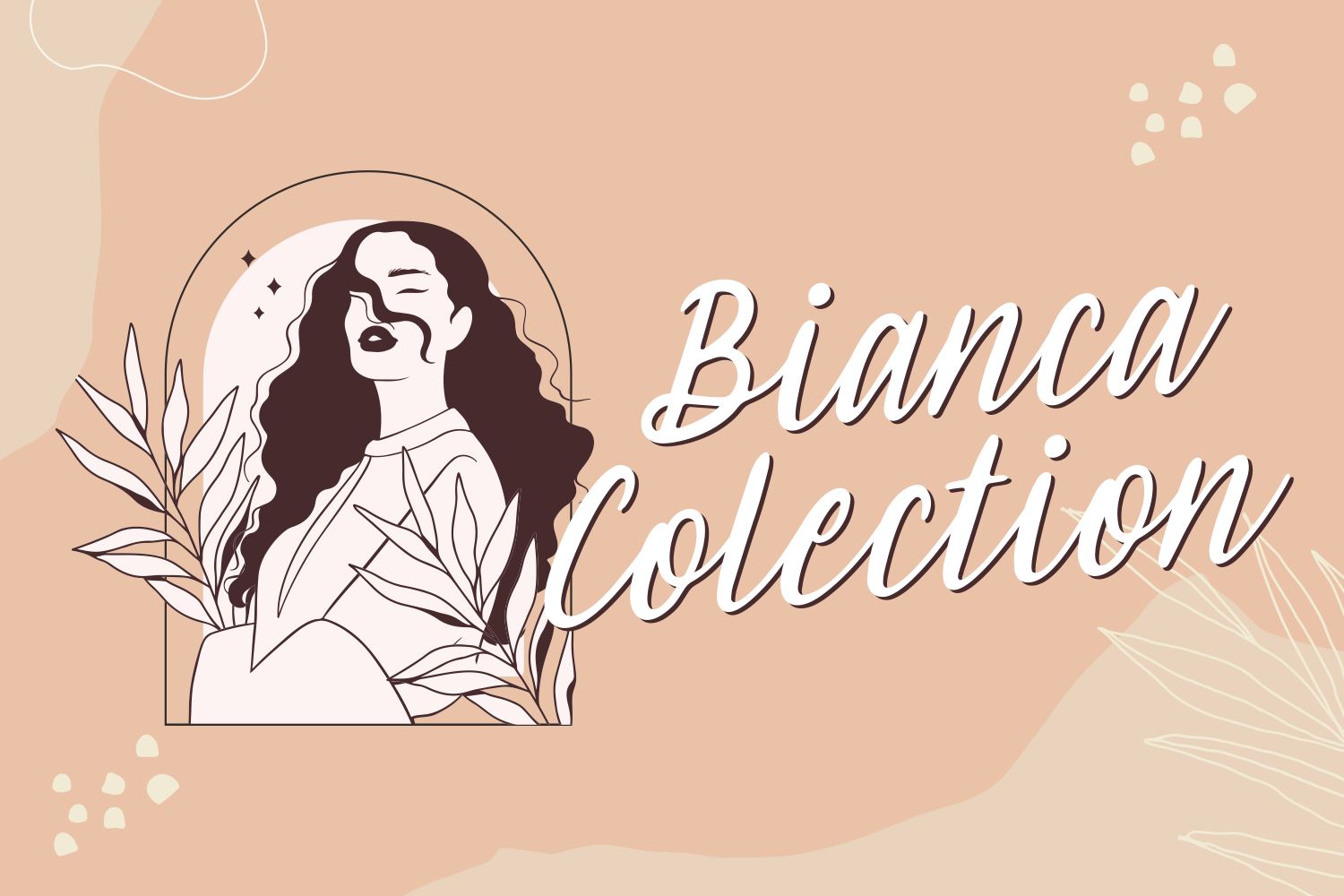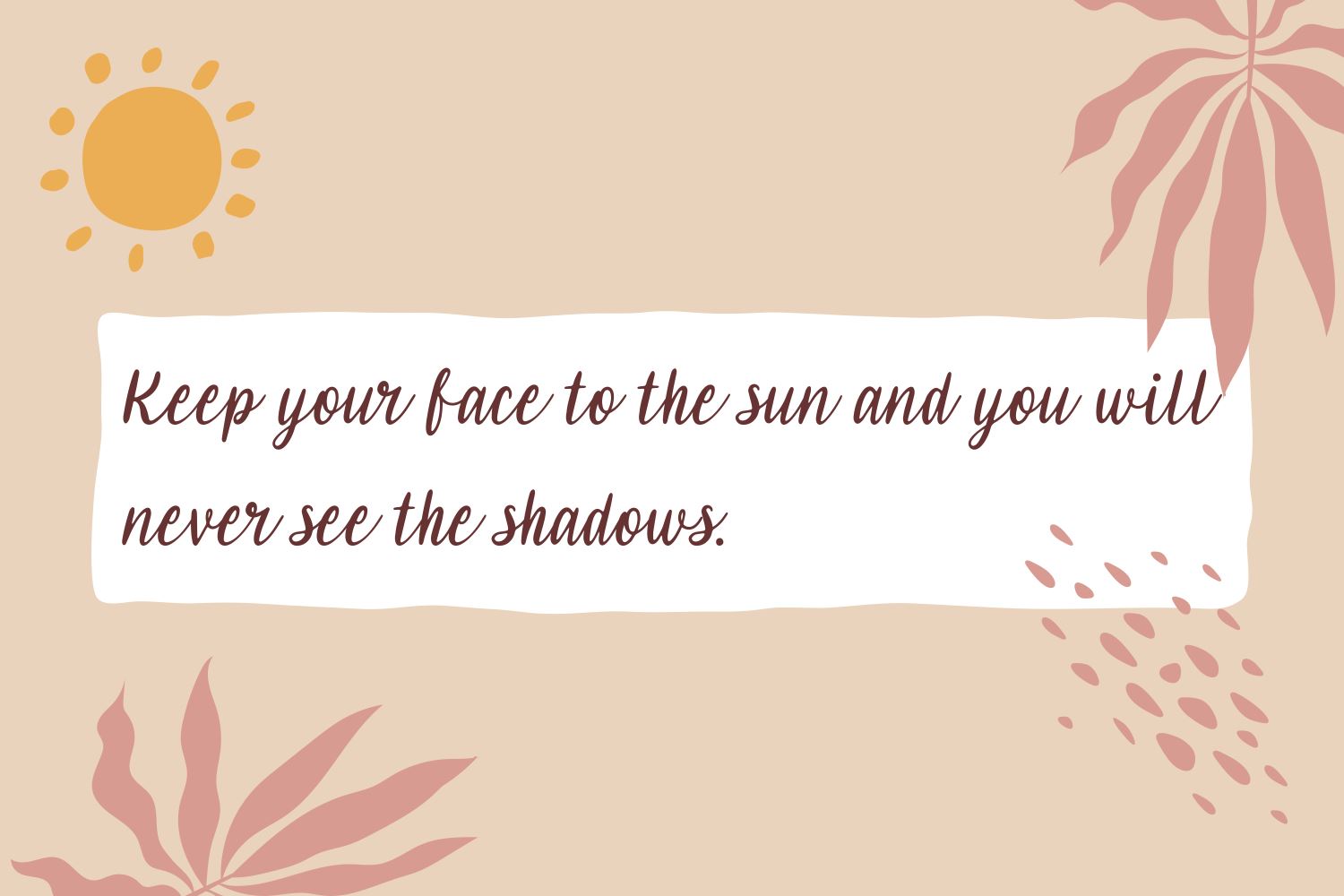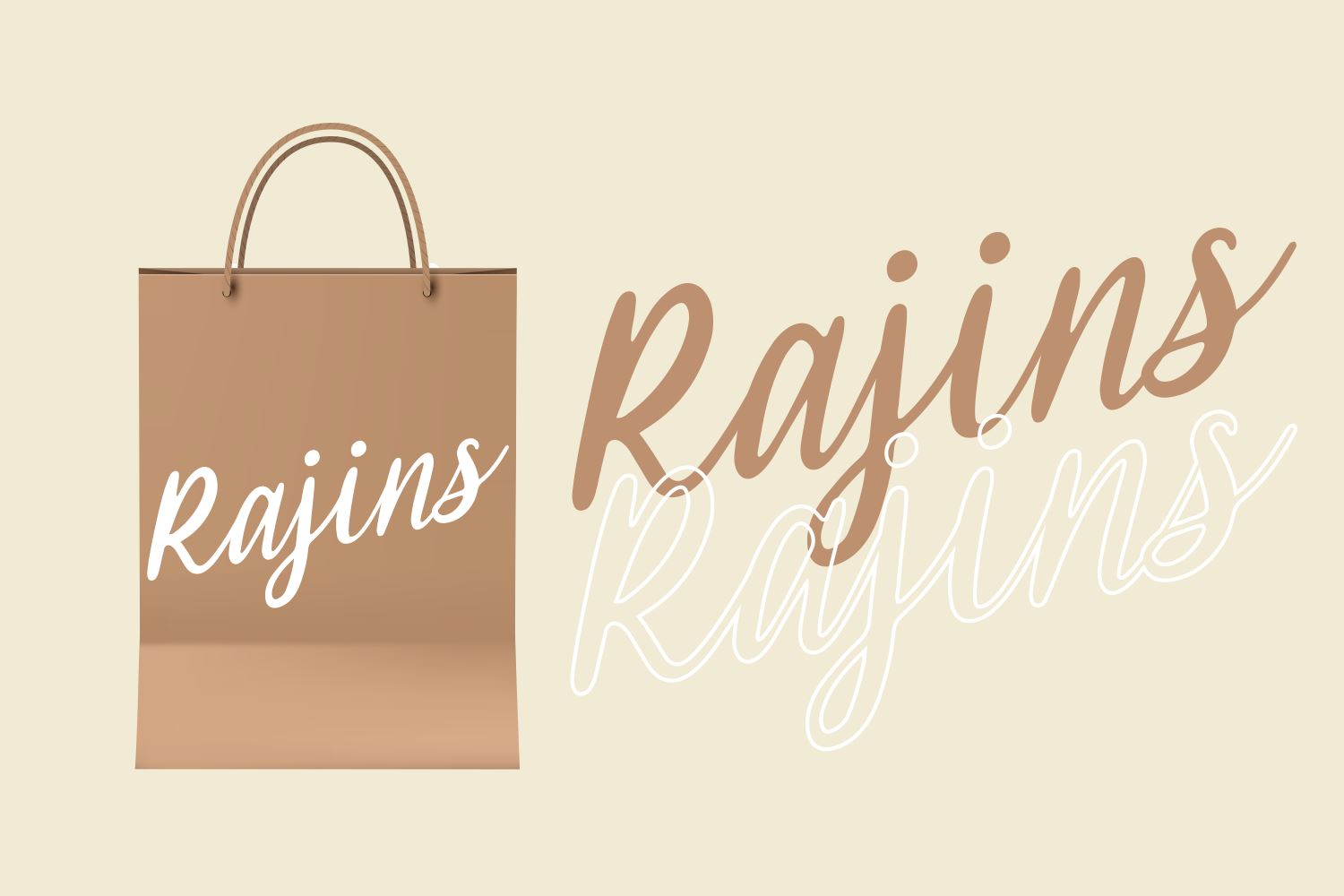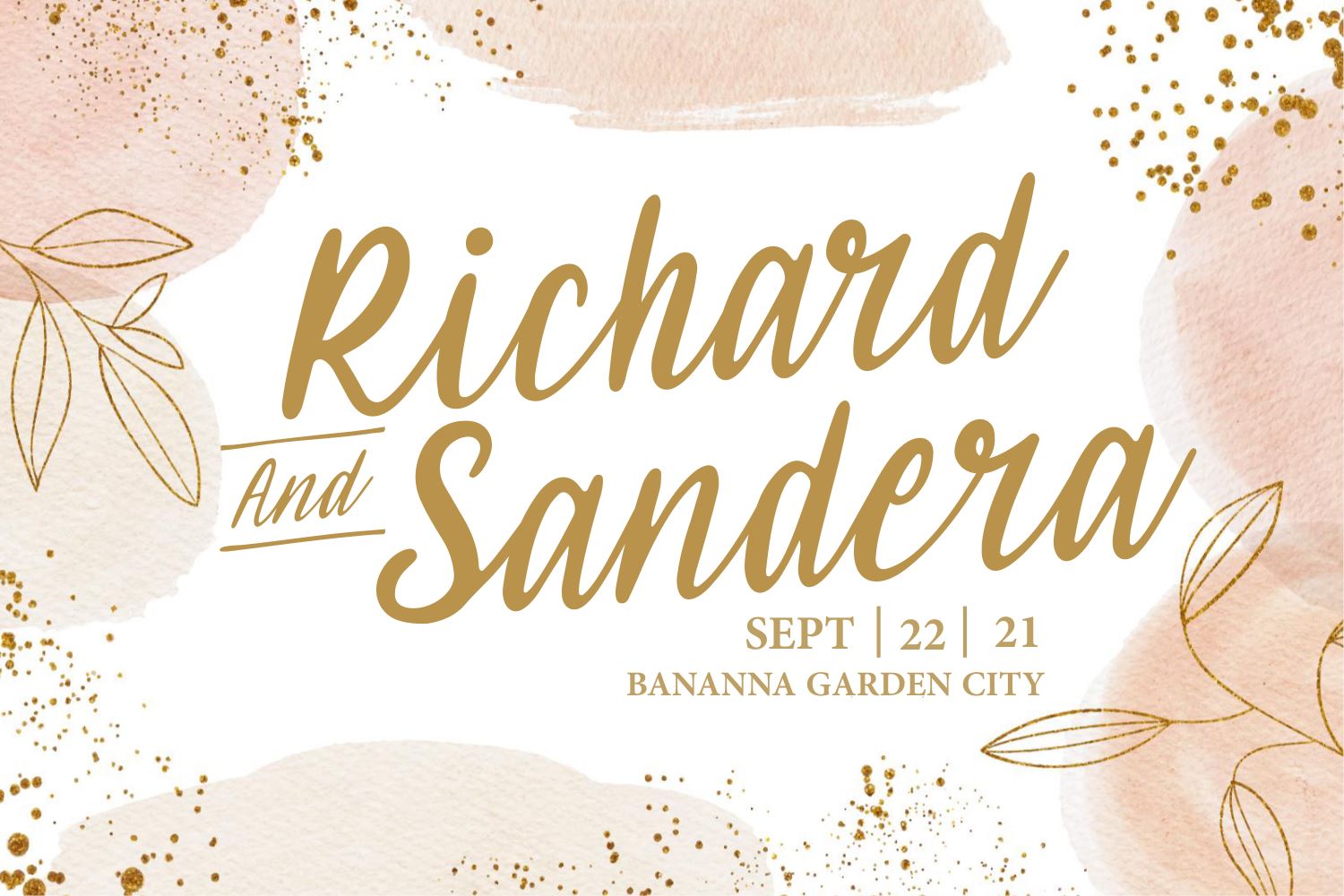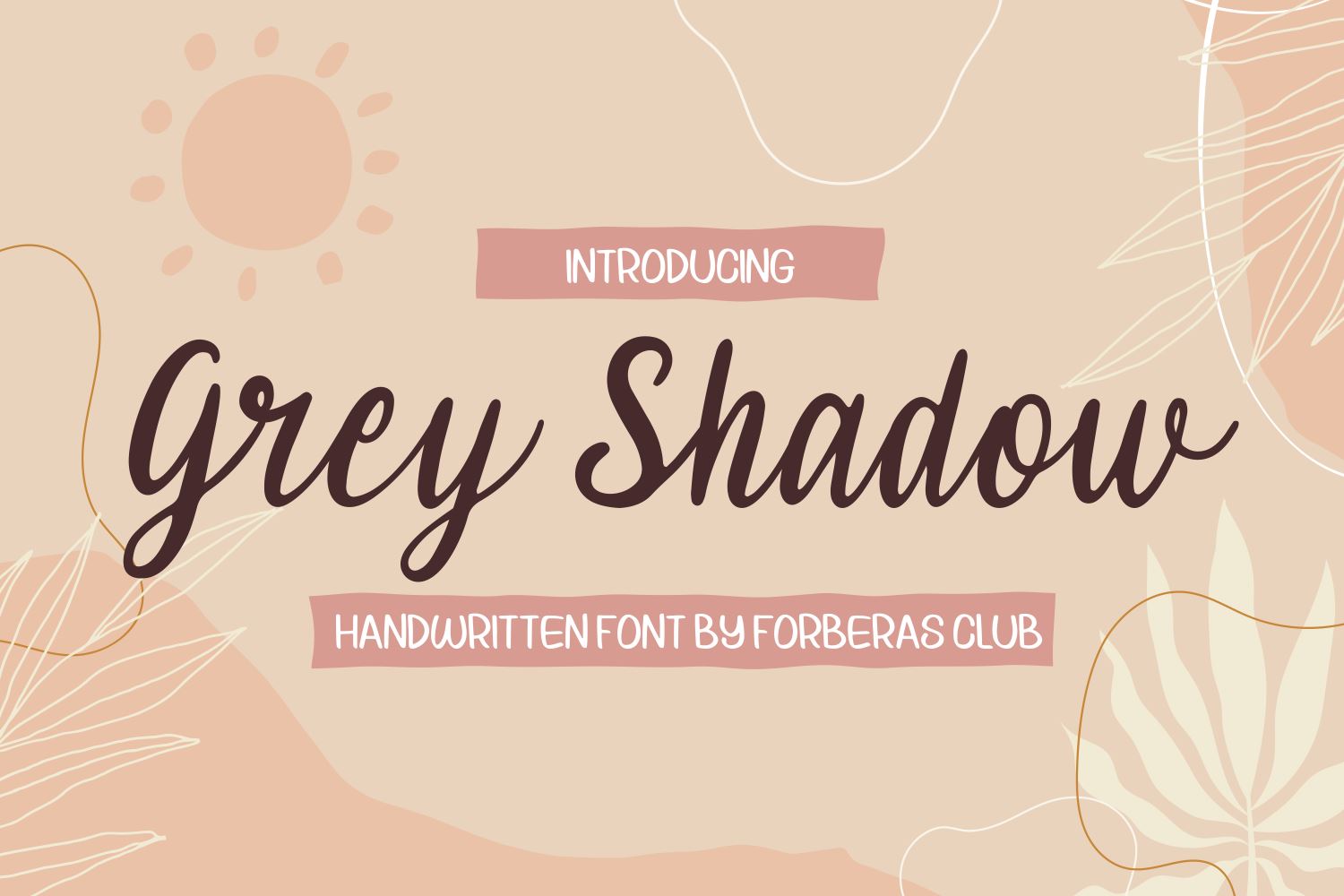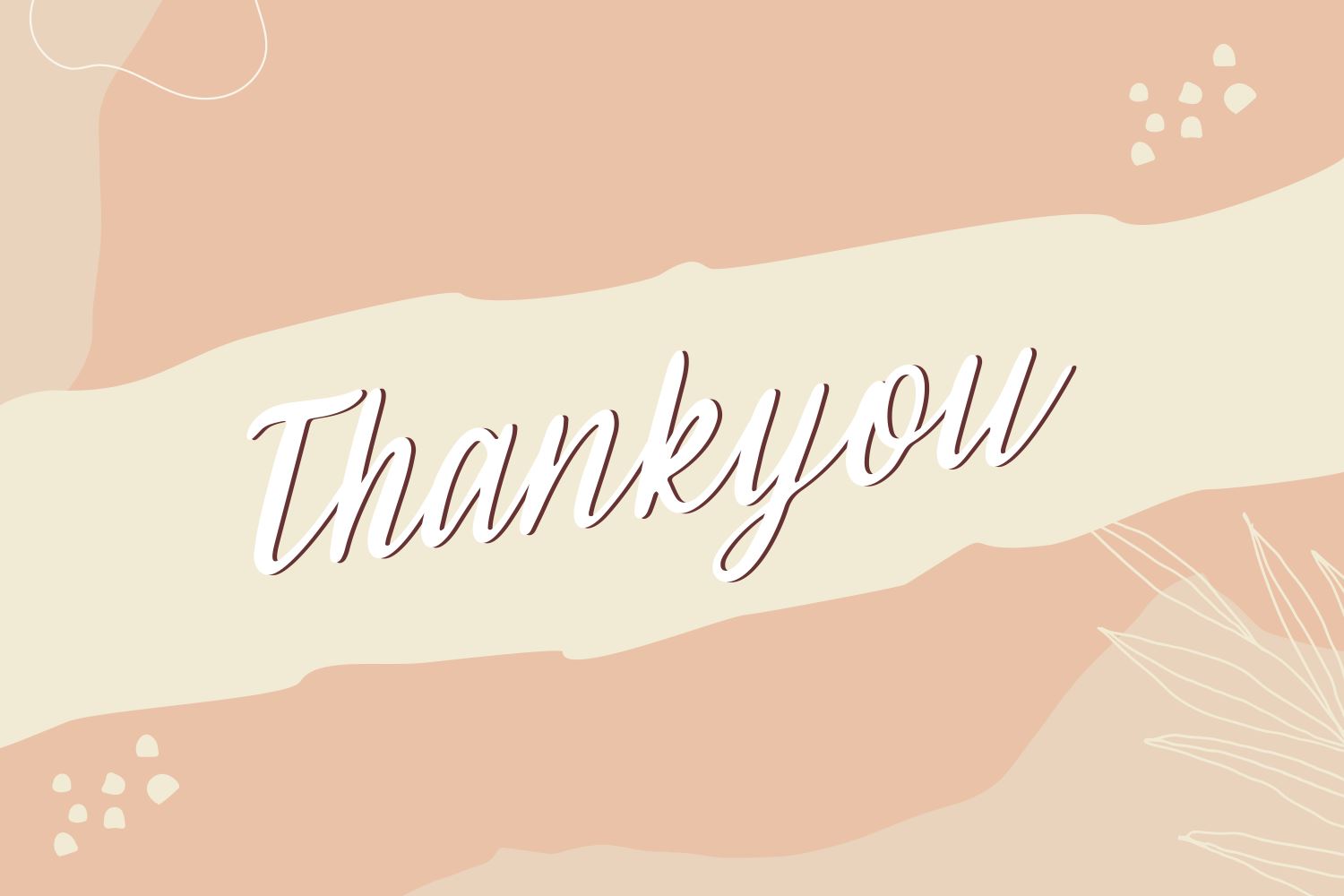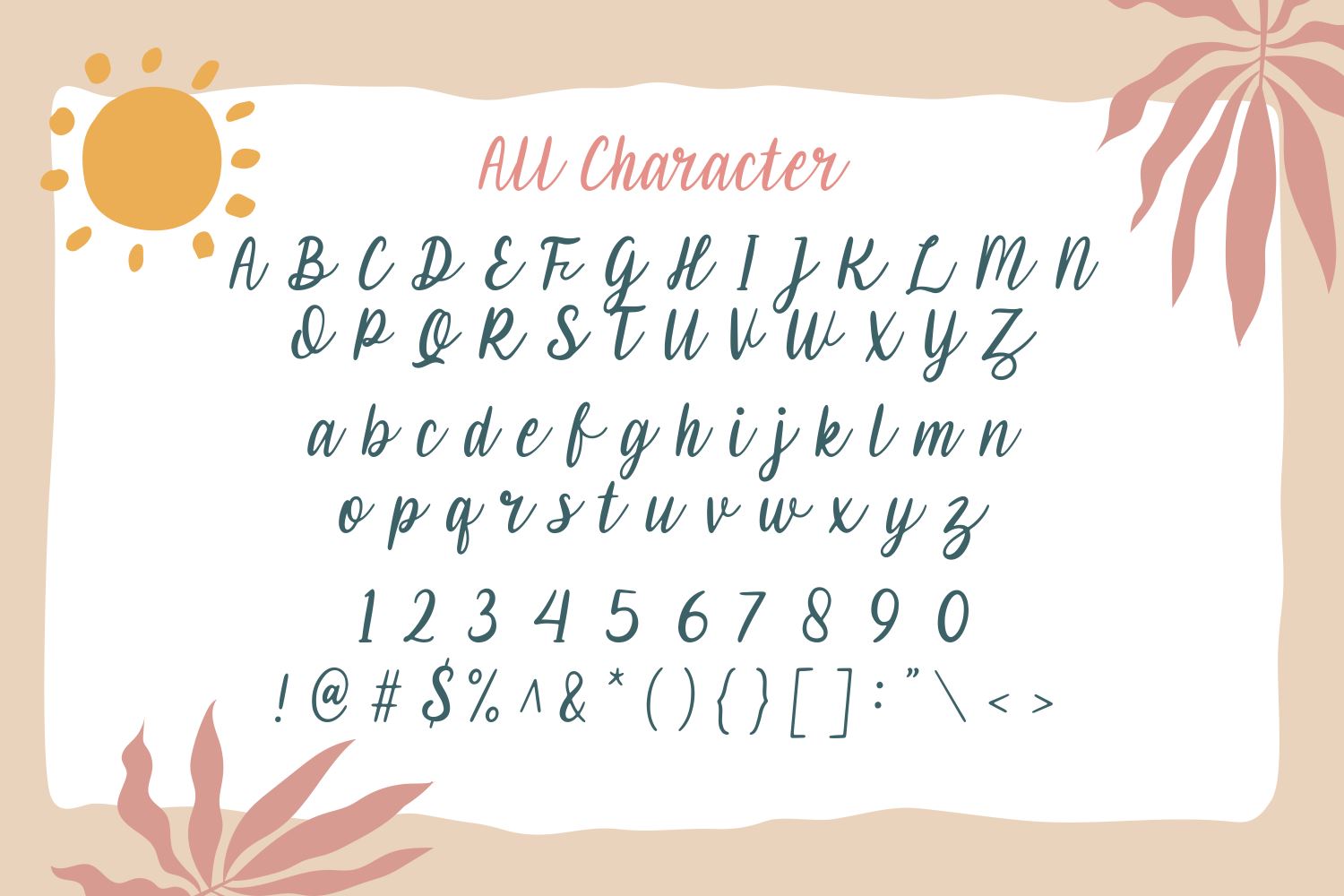
Grey Shadow
Introducing Grey Shadow Font by Forberas Club Grey Shadow is a Modern Handwritten Font. Grey Shadow is perfect for book cover, product packaging, branding project, megazine, social media, wedding, or just used to express words above the background.This font includes TTF and OTF, This font also multilingual support.